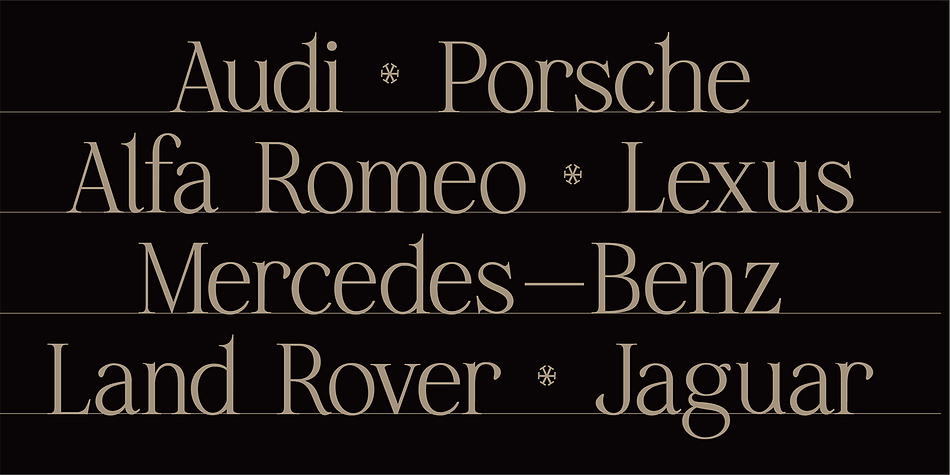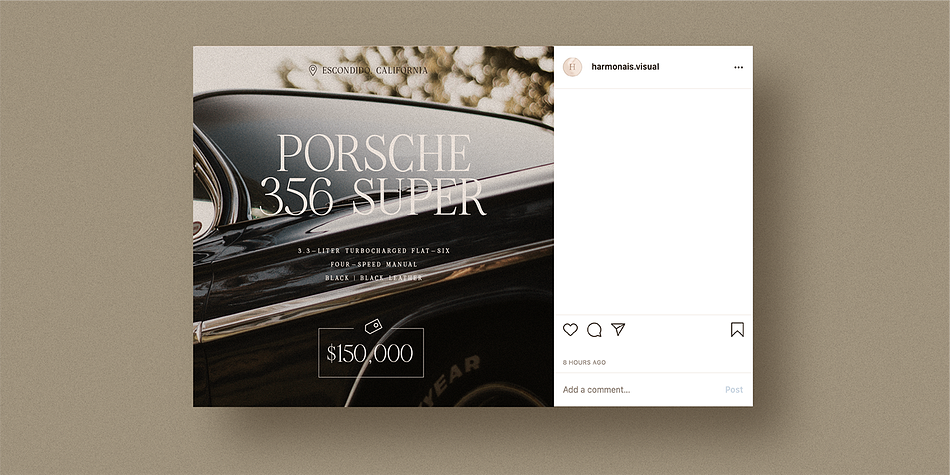
HV Constantine
Designed by Max Duy T., HV Constantine is a display serif and serif font family. This typeface has two styles and was published by Harmonais Visual.
Constantine - an exquisite display modern serif, inspired by classic roman arts and vintage cars aesthetics. Specially designed for luxury, clean, high-end projects, perfectly suitable for creating elegant, classy designs such as magazines, social media, and more. The font features standard ligatures.